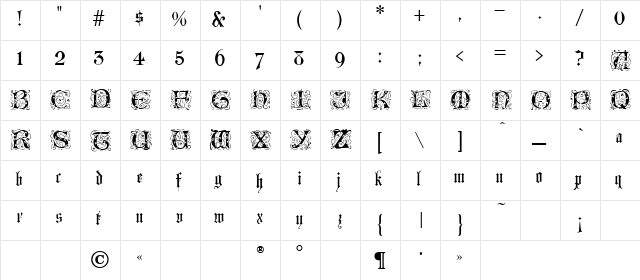
Lombardina Initial One Regular
| Foundry | Gophmann A.L. |
| Designer | Gophmann A.L. |
Design Context for Lombardina Initial One Typeface
Lombardina Initial One is a composed and adaptable typeface that performs quietly and consistently across a wide range of design contexts.